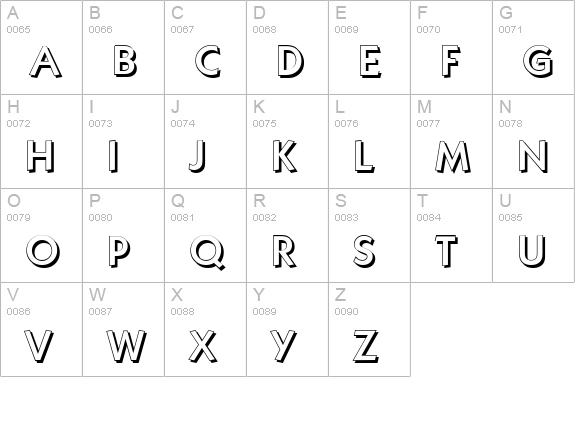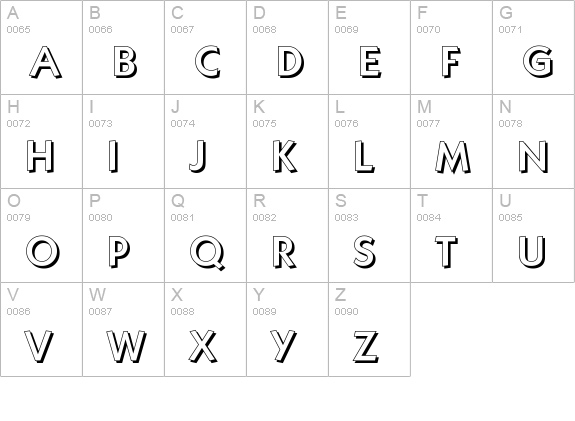
KoblenzShadow-Medium-Regular is a balanced, medium-weight variant in the KoblenzShadow typeface family \xE2\x80\x94 well suited to sub-headlines, navigation, and balanced editorial work.
KoblenzShadow-Medium-Regular font is a sophisticated and versatile typeface that exudes elegance and modernity. Its sleek design and clean lines make it perfect for a wide range of projects, from branding to editorial design. The balanced contrast between thick and thin strokes gives this font a unique and dynamic look that will make your text stand out. What makes KoblenzShadow-Medium-Regular font even more appealing is that it is available for free download at FontsMarket.com. This means you can easily access this high-quality font without any cost, making it a valuable addition to your font library. Whether you are a designer looking to elevate your projects or a content creator in need of a stylish font, KoblenzShadow-Medium-Regular font is a must-have resource that offers both beauty and functionality. Download it today and enhance your designs with this exquisite typeface.